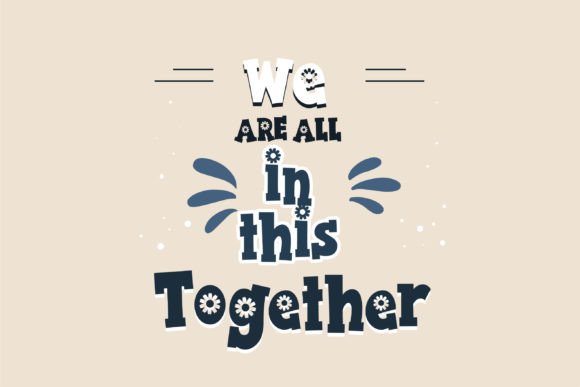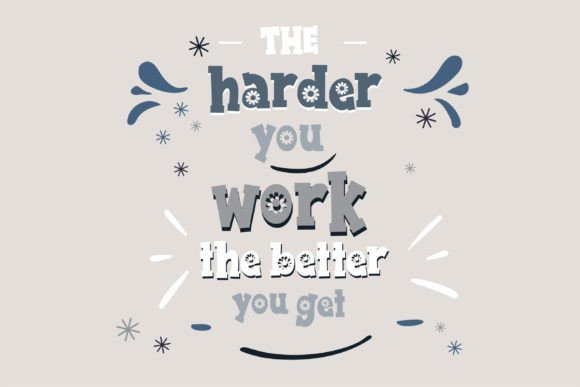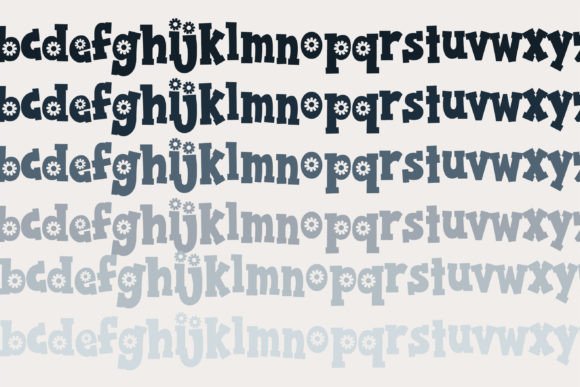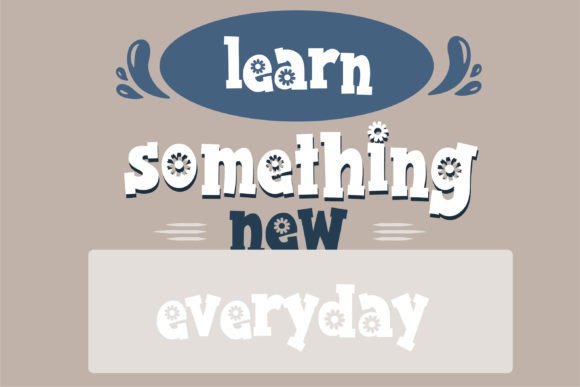
Introduction to Daisyfoot Font
Daisyfoot is a bold serif display font that sports daisy silhouettes throughout.
Contemporary and fresh, it is perfect for any design you wish to create Add it to your creative projects and make them outstanding.
Key Features of Daisyfoot Font
Why Choose Daisyfoot Font?
Daisyfoot Font offers exceptional quality and versatility, making it a valuable addition to your design toolkit. Whether you’re creating for personal projects or commercial use, Daisyfoot Font delivers professional results.